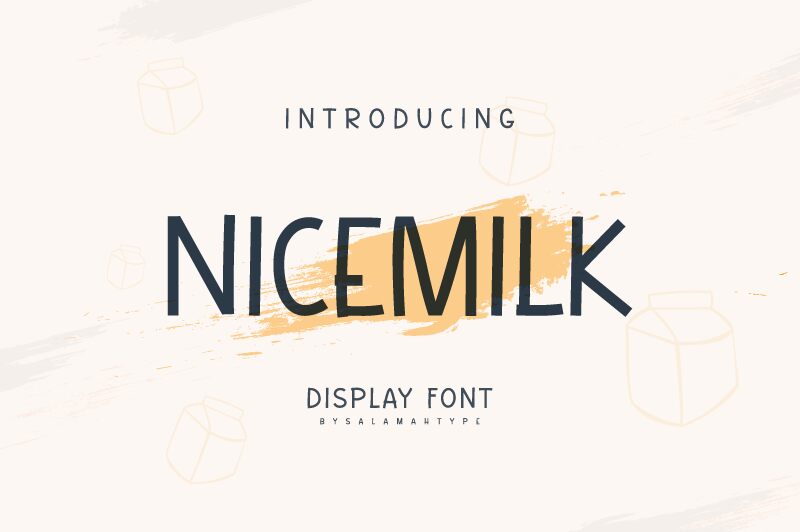
NicemilkDEMO
Nicemilk font is a charming display font from Salamahtype.com, featuring a cartoon style with a hand-drawn appearance. Its irregular spacing and organic forms create a casual look that captures both modern appeal and playful vibes.
This free font is ideal for comics, social media posts, video game designs, children’s books, flyers, invitations, t-shirt designs, logos, presentations, packaging projects, magazines covers and much more!